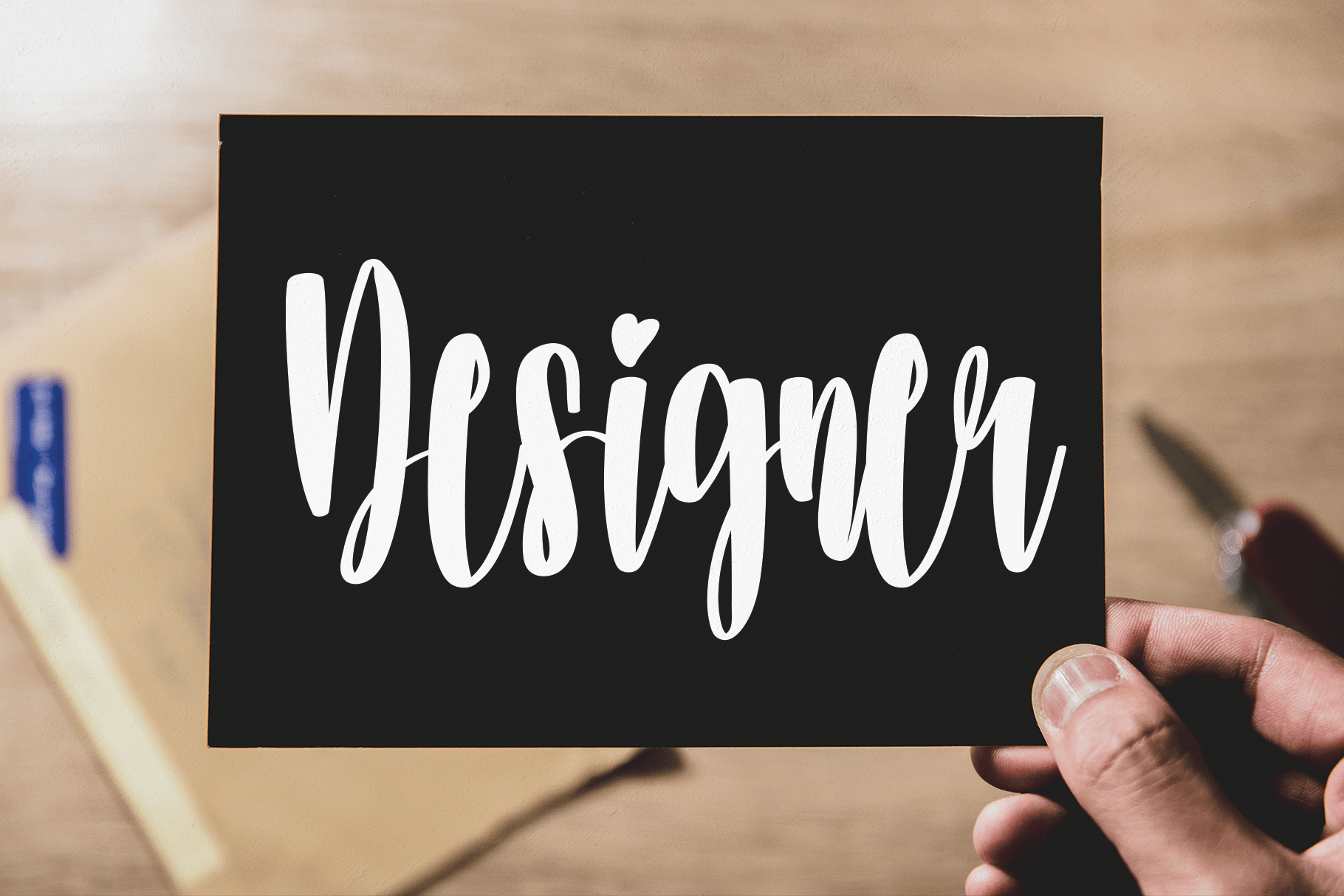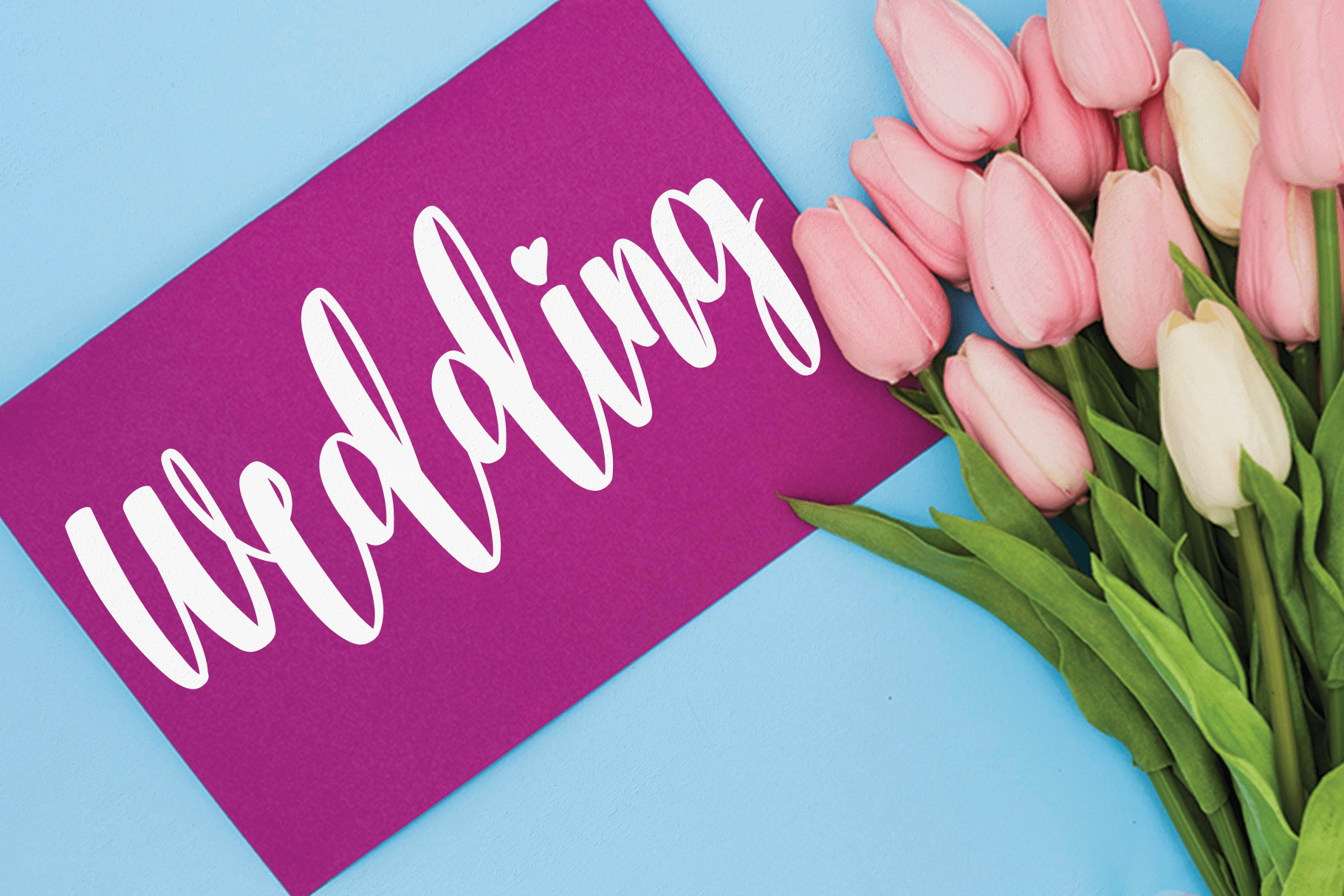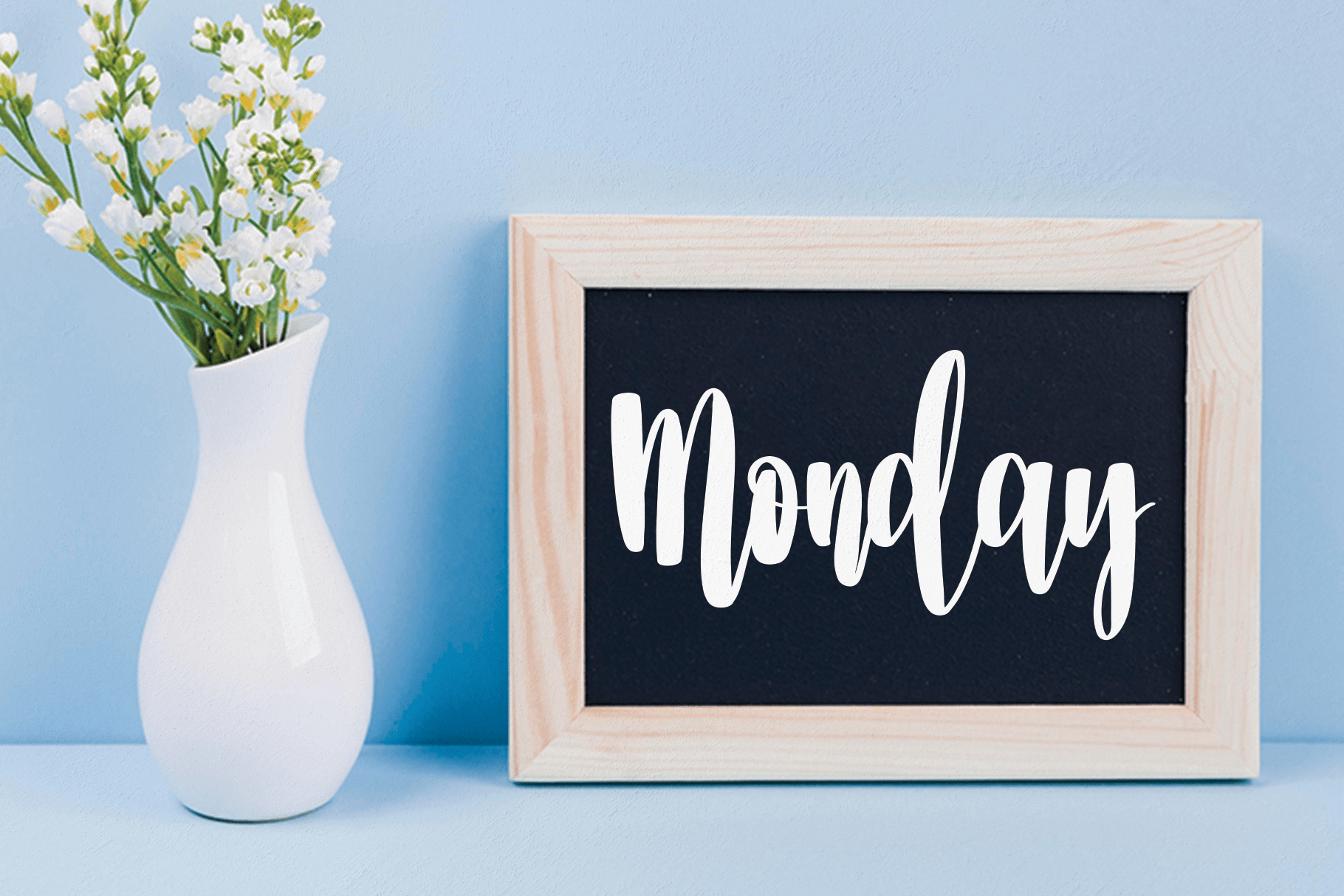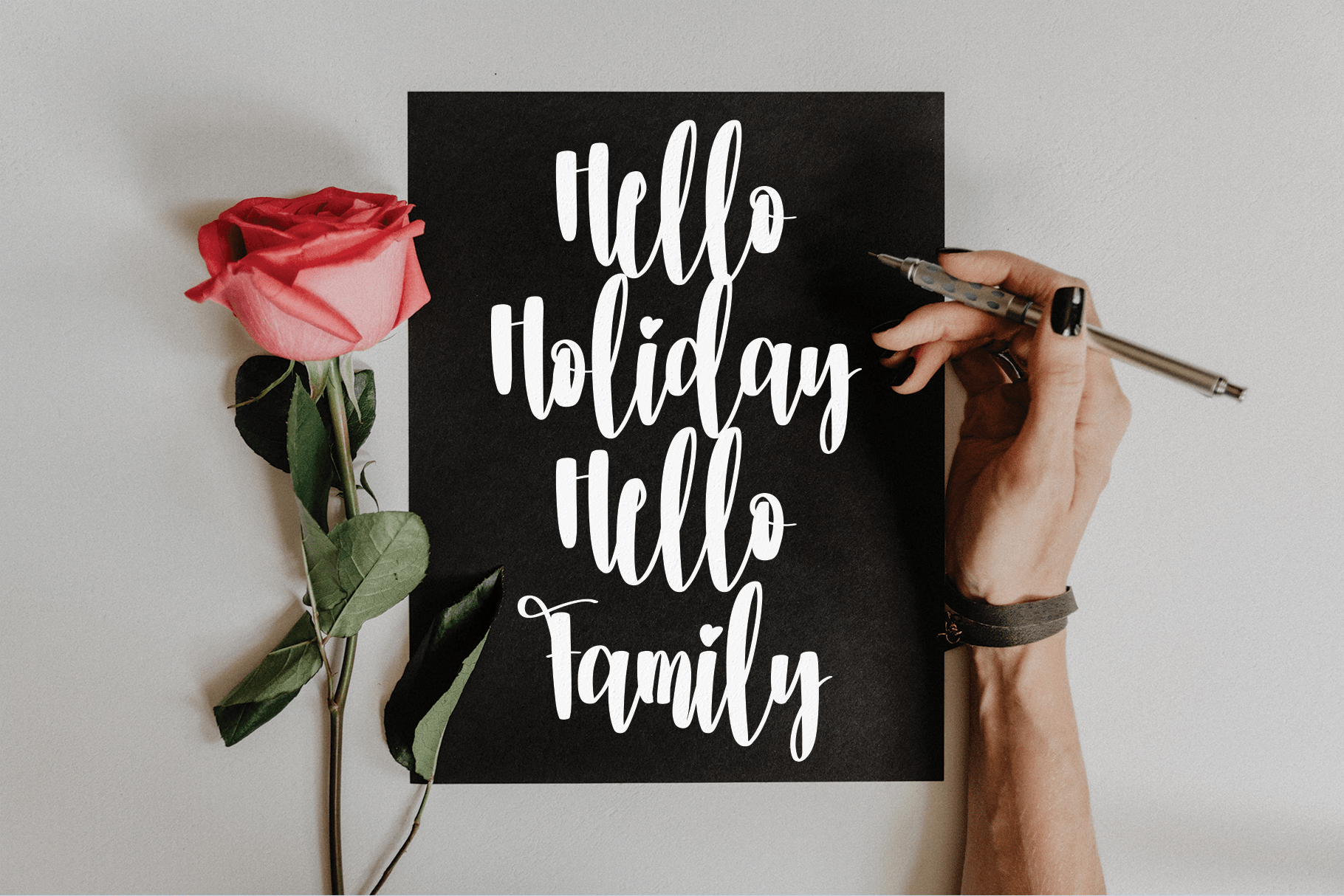
Farmhouse Script Font
This is a romantic and sweet calligraphy typeface. Its distinct and well rounded letters make this font a masterpiece. Fall in love with its flexible style and use it to create spectacular designs!